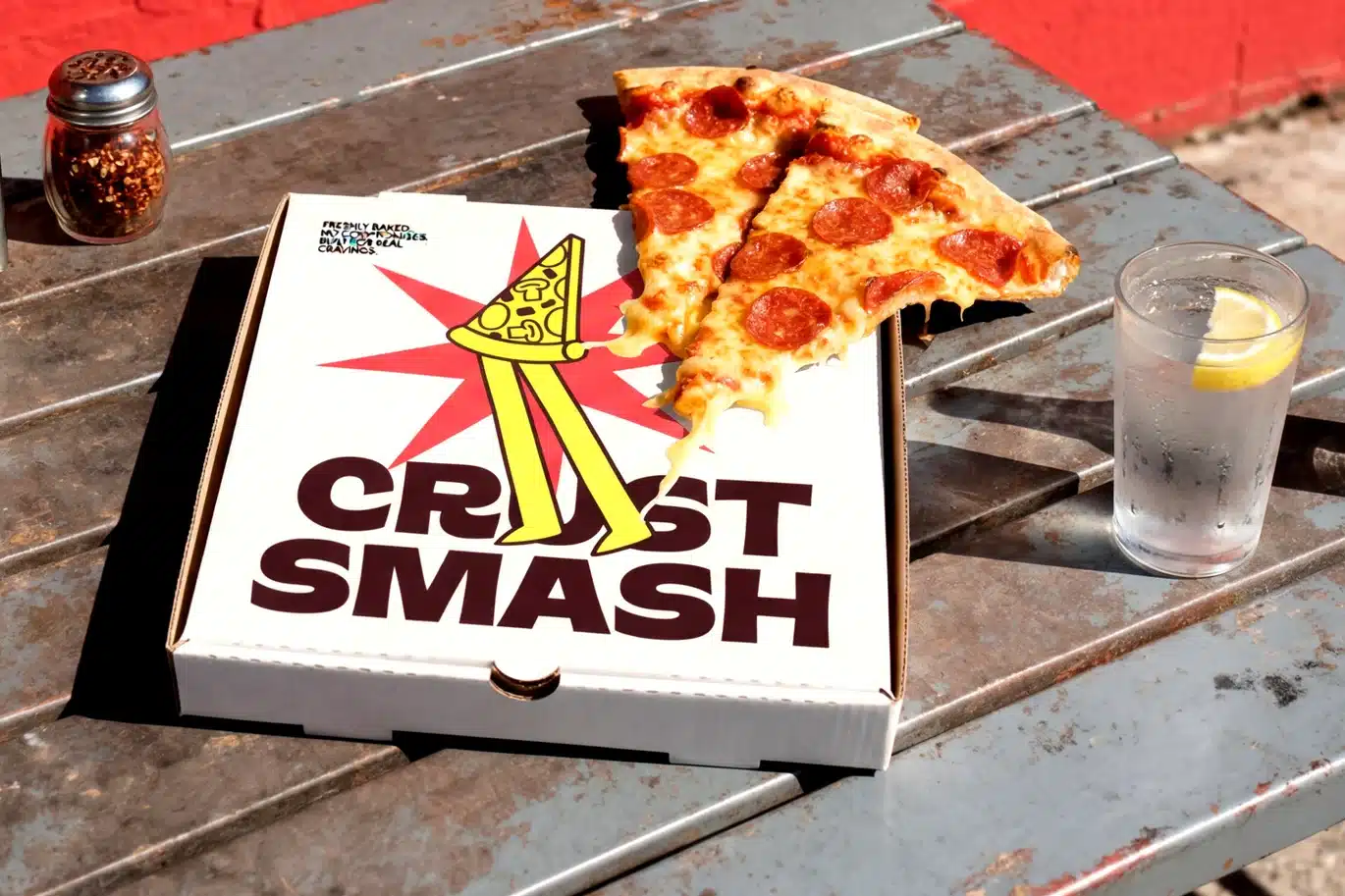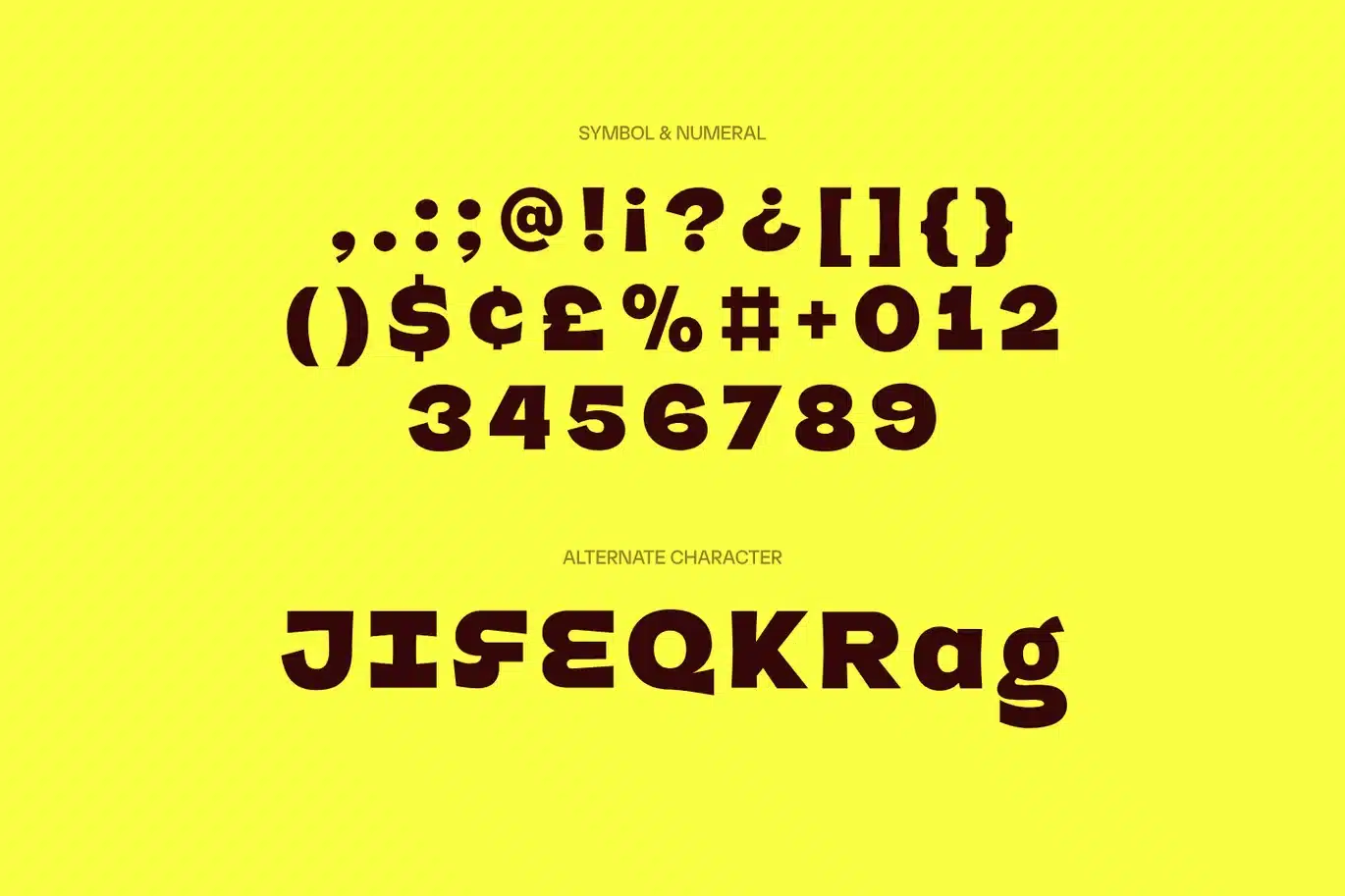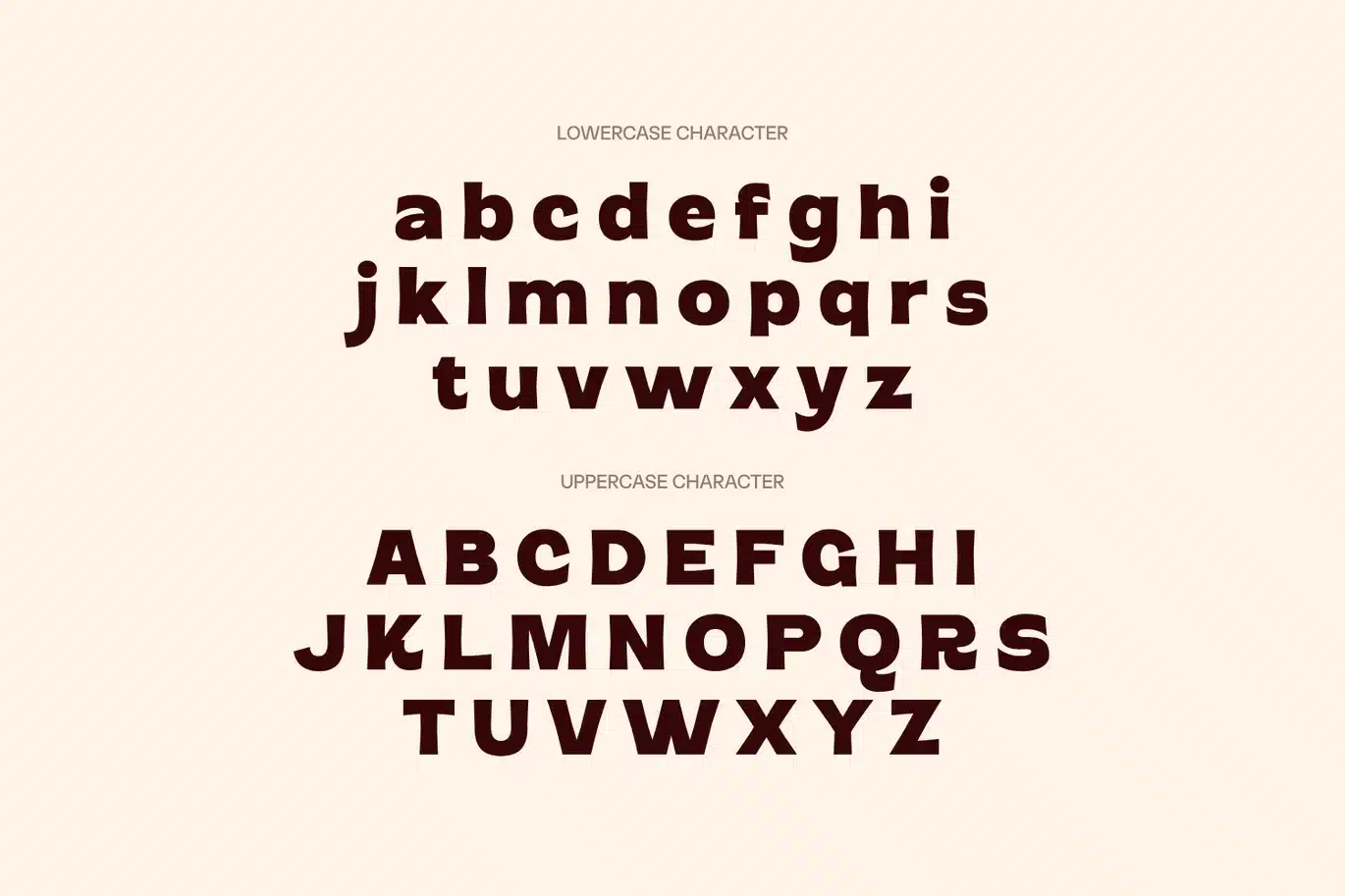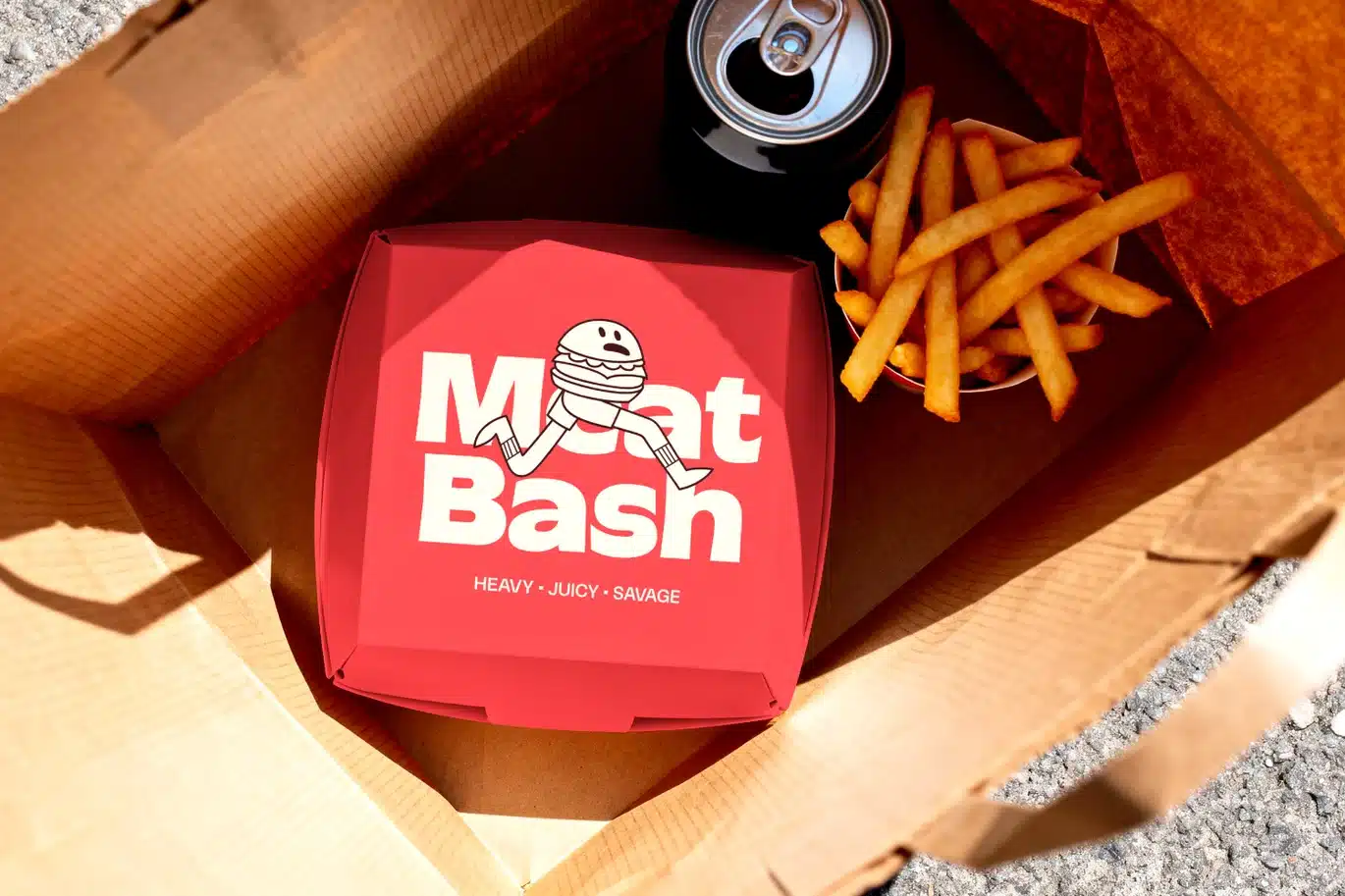
Fast Food – Food Font
Fast food is a bold and spicy display font designed to bring strong personality into every food logo and brand identity. Inspired by the fast-paced world of restaurant culture, this typeface is perfect for coffee shops, bakery concepts, cafe visuals, and burger promotions that need to stand out. With its powerful letterforms and energetic style, Fast food captures the essence of pizza cravings, sweet candy moments, and rich chocolate experiences, making every design feel lively and irresistible.
Perfect for menu layouts, packaging, and promotional graphics, Fast food fits seamlessly into themes of ice desserts, cooking visuals, and modern kitchen branding. Its confident and eye-catching appearance helps elevate any brand, whether it’s a trendy cafe, a vibrant restaurant, or a creative food business. Fast food delivers a dynamic and memorable look that enhances every detail, turning simple designs into bold and delicious visual statements.